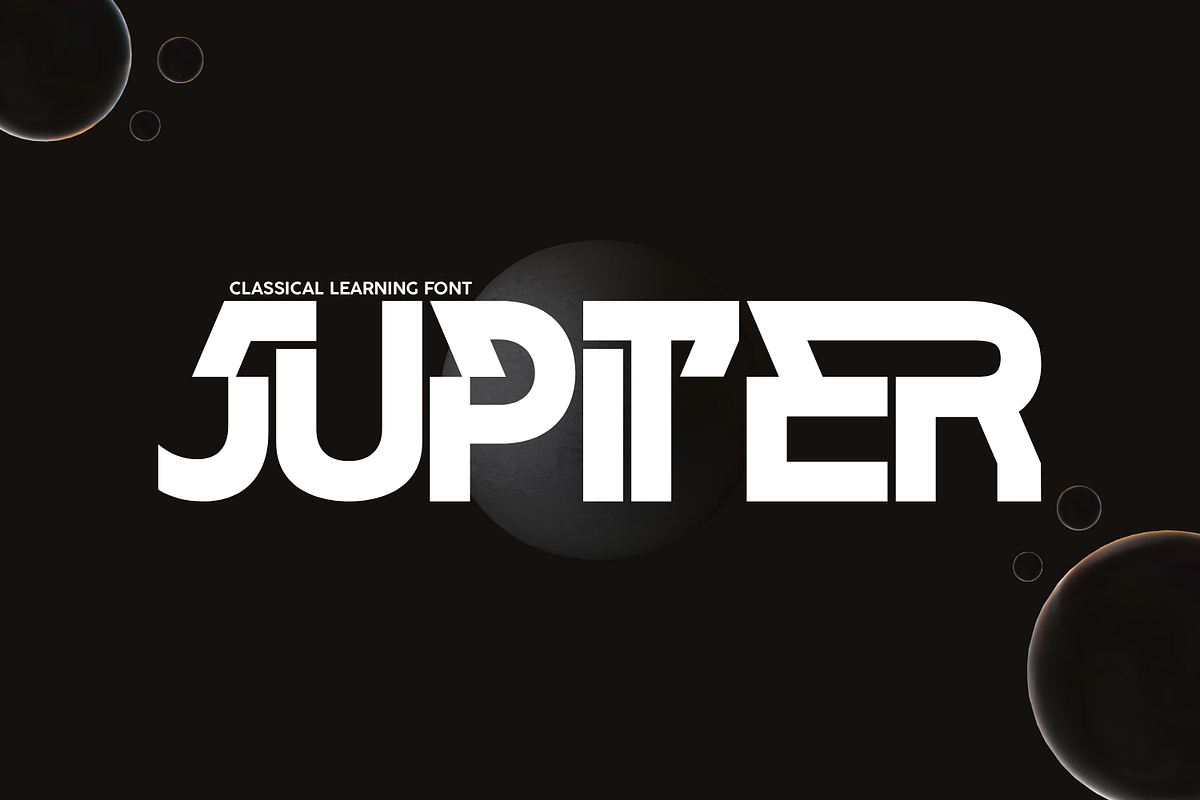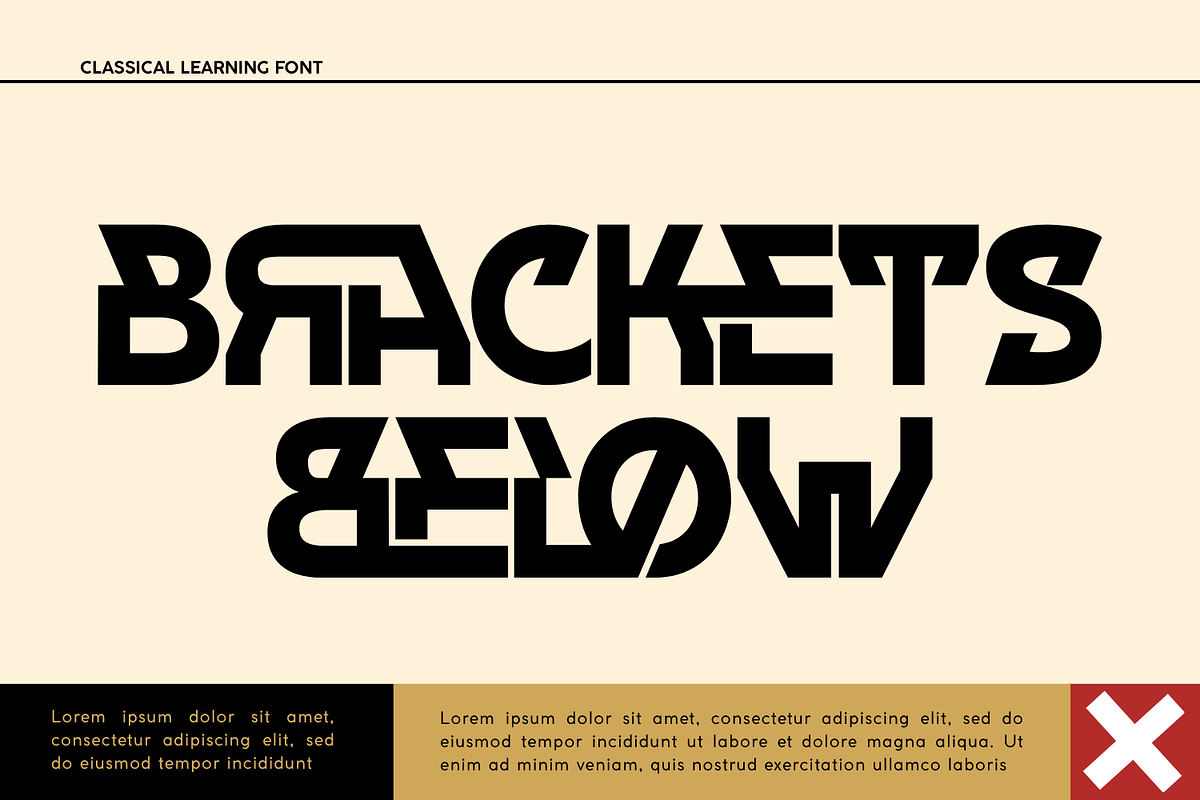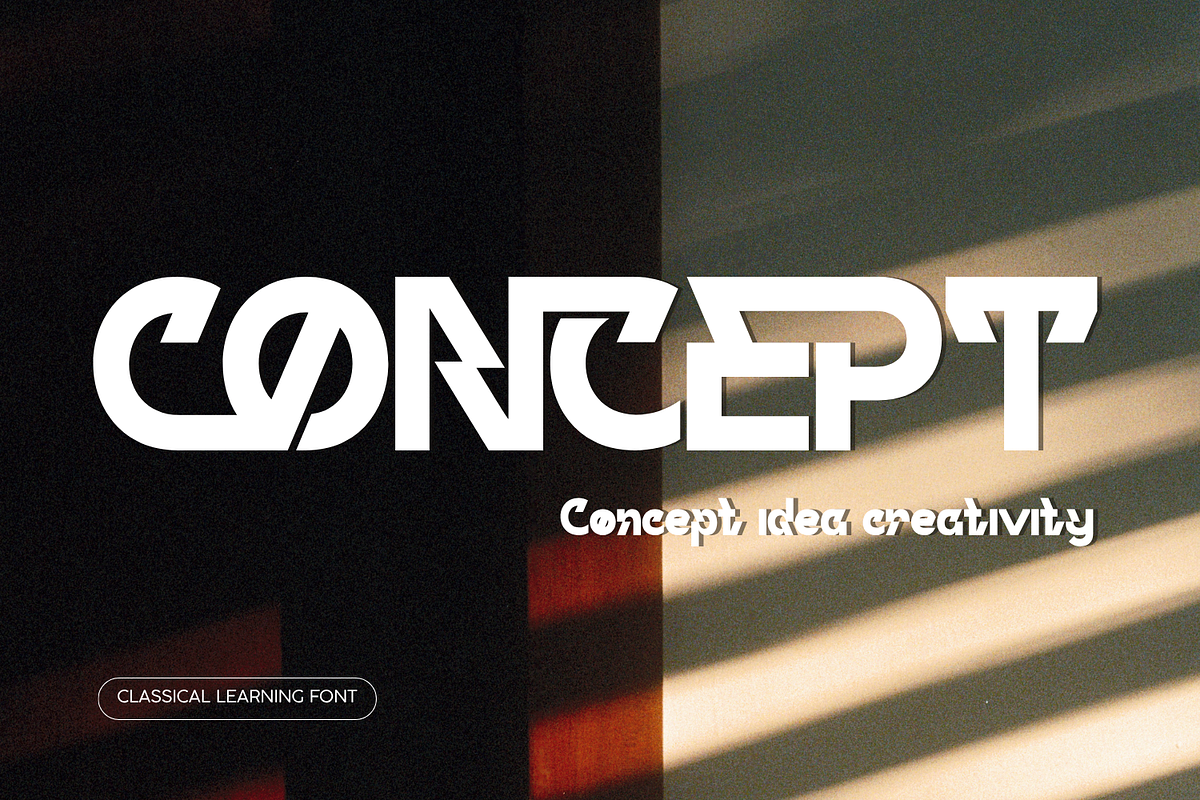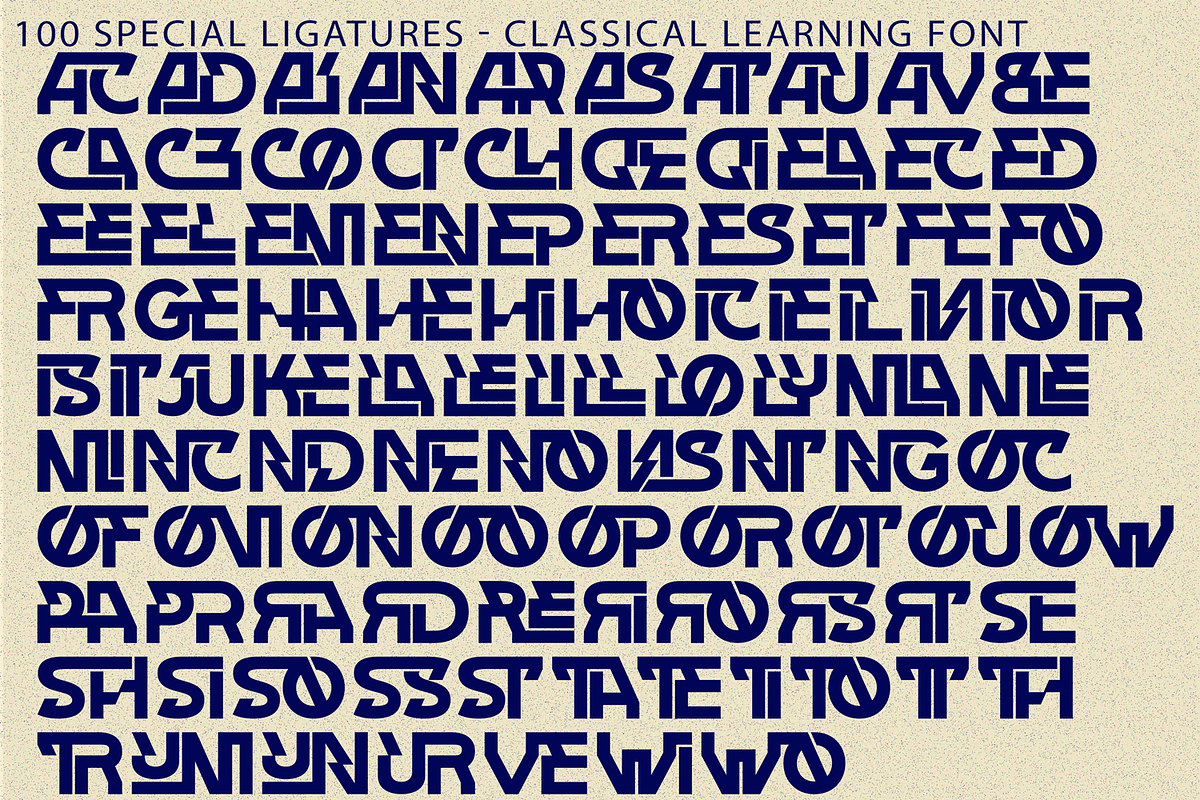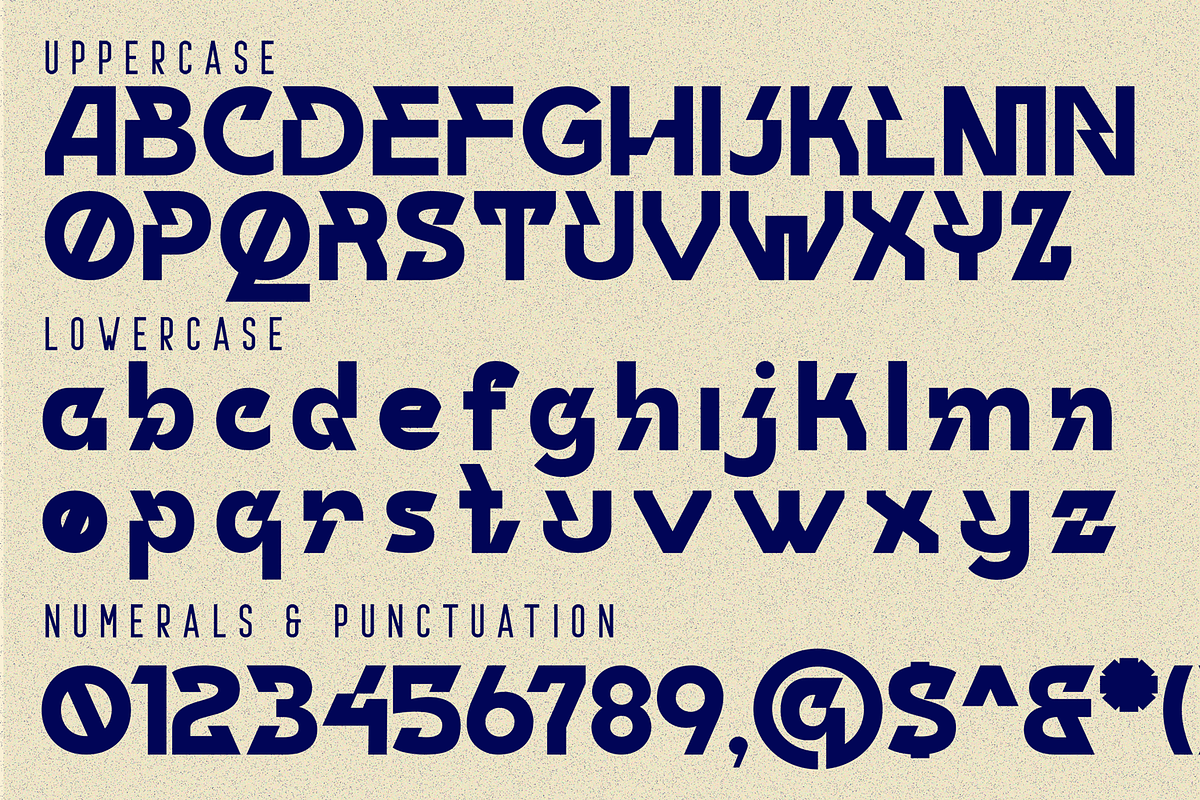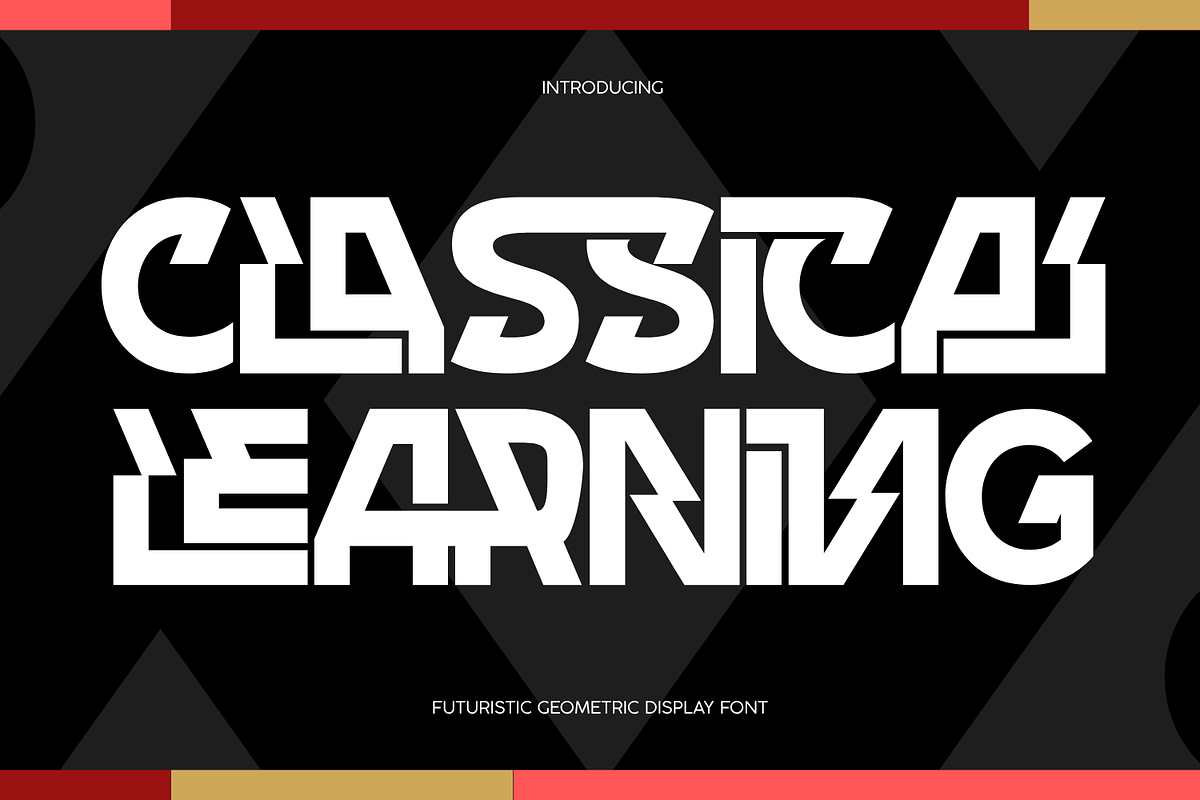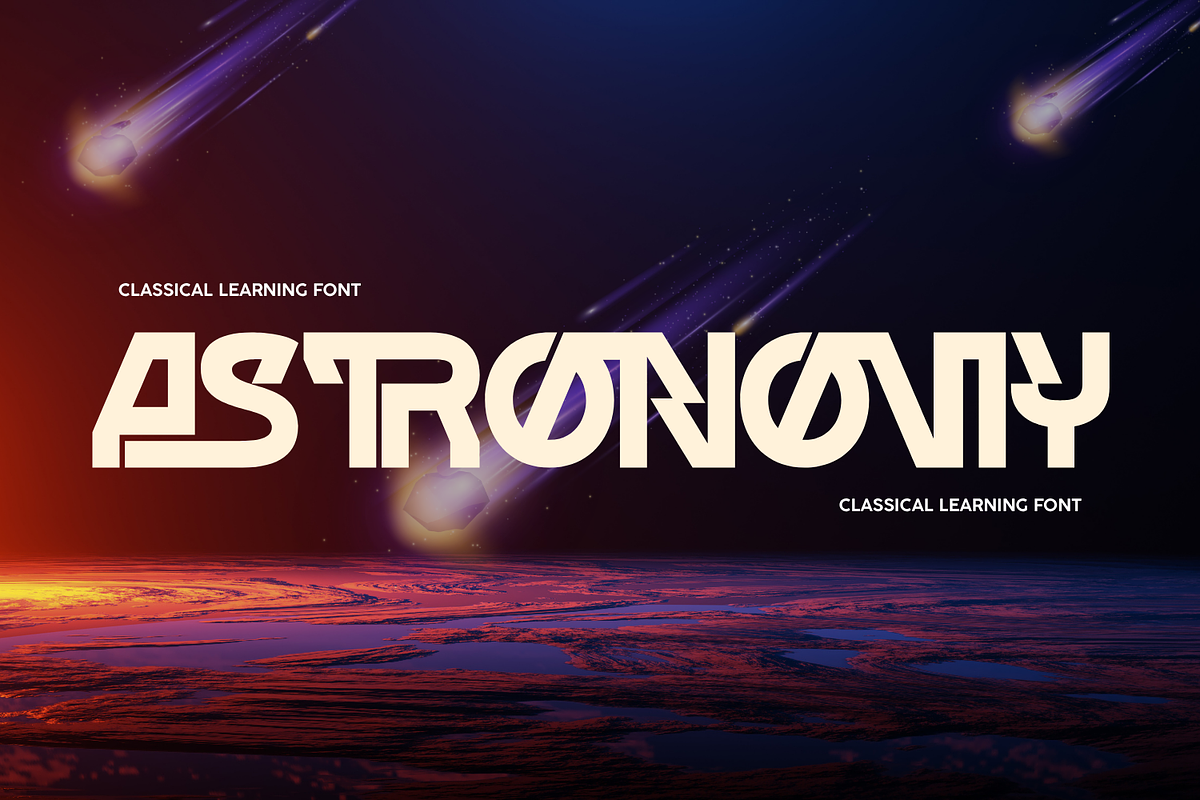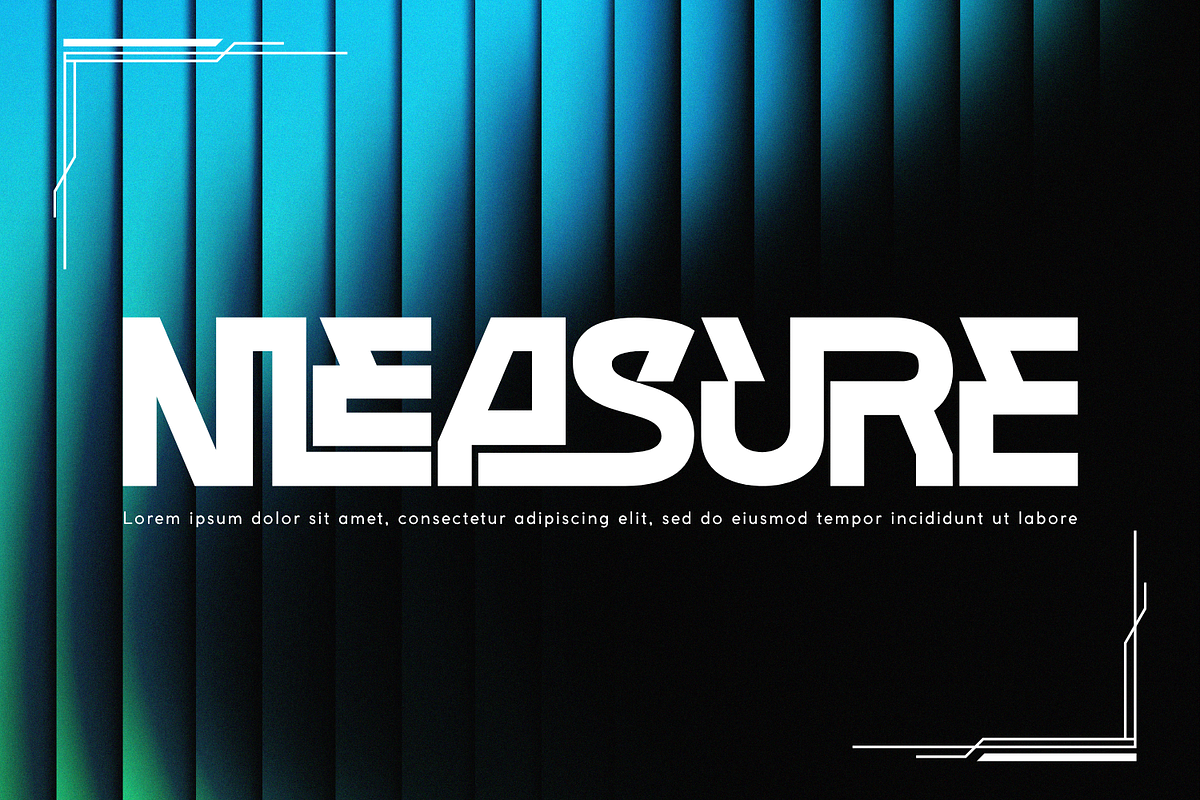
CLASSICAL LEARNING - FUTURISTIC FONT
CLASSICAL LEARNING - FUTURISTIC FONT – Futuristic Geometric Stencil & Interlocking Cyber Display Font is a bold experimental display typeface built around geometric forms, sharp cuts, and unconventional letter structures. Combining strong architectural shapes with smooth curves and dramatic negative spaces, the typeface transforms familiar letterforms into distinctive graphic compositions with a confident contemporary character.
Its heavy construction is balanced by angular terminals, diagonal cuts, open counters, and unexpected geometric details, creating a striking rhythm across words and headlines. Some characters feature stencil-inspired breaks and abstract internal forms, while others combine sweeping curves with rigid structural elements. This contrast gives CLASSICAL LEARNING a unique personality that feels futuristic, artistic, and slightly retro at the same time.
🔤Features:
Uppercase & Lowercase Letters
Around 100 Special Ligatures & Alternates
Accented Characters for multilingual support
🔤About 100 ligatures combined with Stylistic Alternates Font:
AC AD AL AN AR AS AT AU AV BE CA CE CH CO CT DE DI EA EC ED EE EL EM EN EP ER ES ET FE FO FR GE HA HE HI HO IE IC IL IN IO IR IS IT JU KE LA LE LI LL LO LY MA ME MI NC ND NE NG NO NT NS OC OF OM ON OO OP OR OT OU OW PA PR RA RD RE RI RO RS RT SE SH SI SO SS ST TA TE TH TI TO TR TT UM UN UR VE WI WO